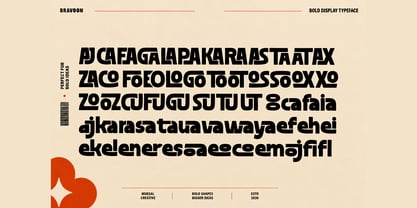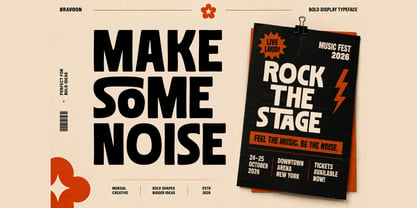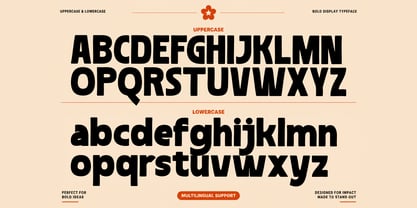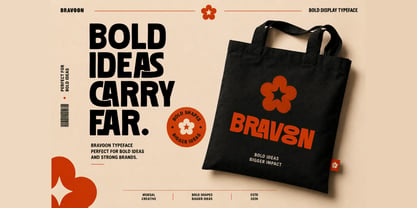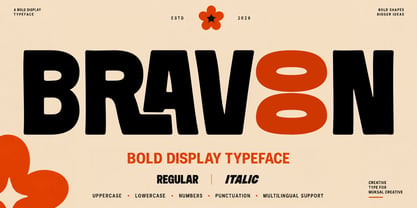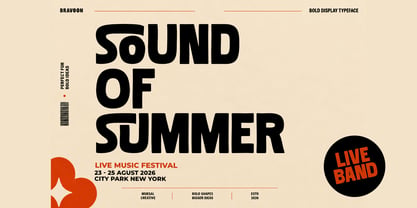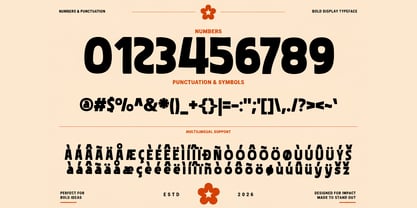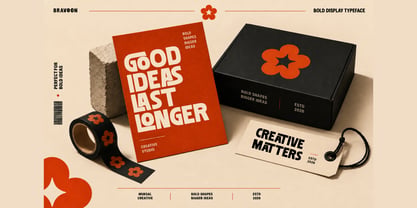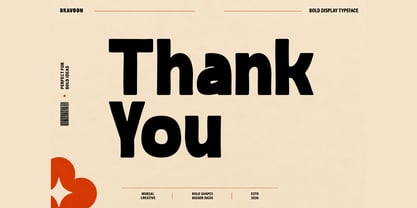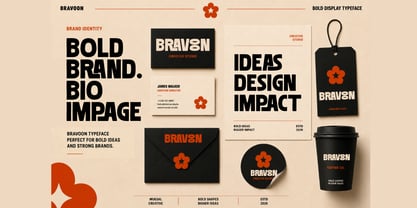
Bravoon
por Muksal Creatives
La familia tipográfica Bravoon fue diseñada por Muksalmina y publicada por Muksal Creatives. Bravoon contiene 2 estilos y opciones de paquete familiar. Más información sobre esta familia
Bravoon is a bold, expressive, and distinctive display typeface designed to make an immediate visual impact. Featuring powerful letterforms, unique character shapes, a wide selection of glyphs, and numerous creative ligatures, Bravoon gives designers plenty of flexibility to create eye-catching and memorable typography.
Its strong personality makes it perfect for large headlines, logos, posters, packaging, fashion graphics, editorial layouts, merchandise, advertising, and modern brand identities.
Bravoon is designed not only to look bold, but also to give designers more creative possibilities through its extensive character set, stylistic combinations, and ligatures.
Diseñadores: Muksalmina
Fundición: Muksal Creatives